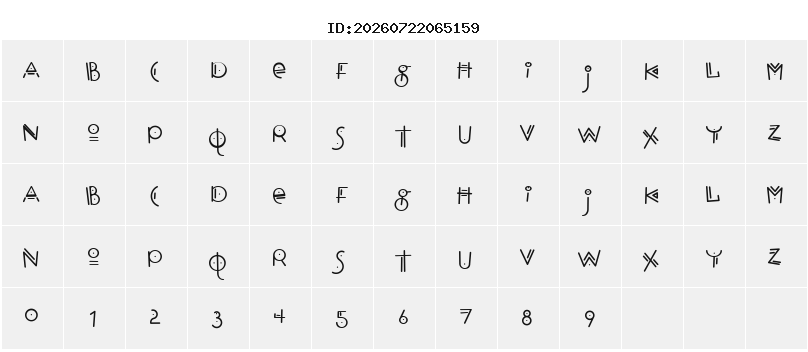
Hopscotch Preview
• Font Name: Hopscotch
• Full Font Name: Hopscotch
About Hopscotch.ttf
Hopscotch.ttf is a modern, elegant sans-serif font designed for ultimate readability and visual harmony. Perfect for branding, headlines, web design, and print materials.